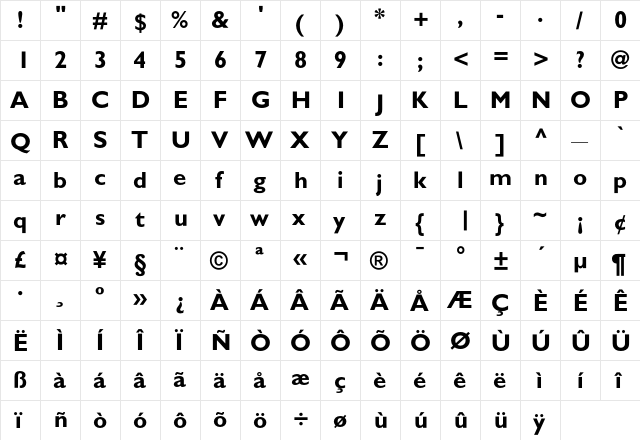
Gentle SansBold Font Preview
Gentle SansBold
Design Context for Gentle Typeface
Gentle offers clean, dependable letterforms without strong stylistic allegiance, making it a practical choice for designers who need flexibility. The heavy weight commands attention and anchors typographic hierarchies.